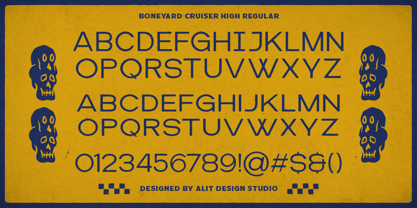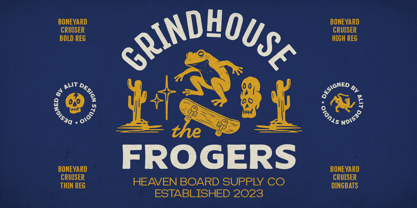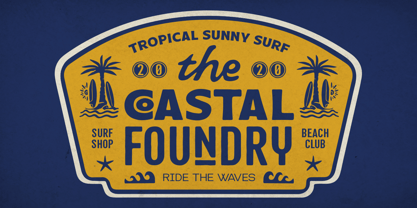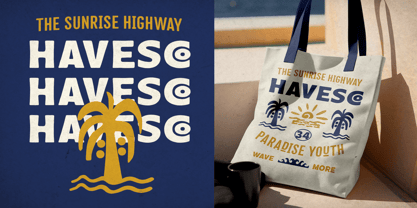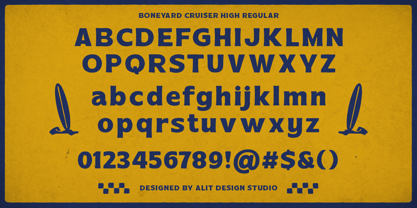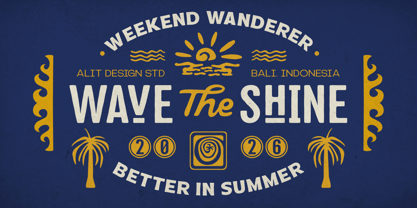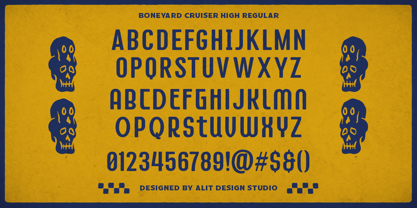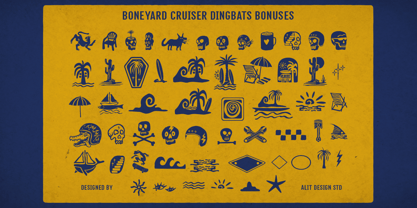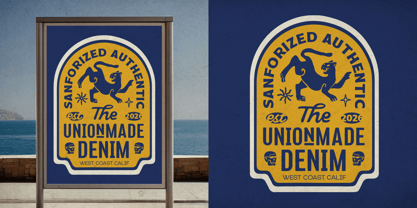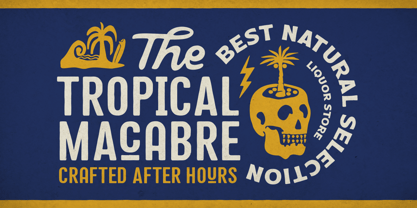
Boneyard Cruiser High
by Alit Design
The Boneyard Cruiser High Font Family was designed by Alit Suarnegara and published by Alit Design. Boneyard Cruiser High contains 4 styles and family package options. More about this family
Introducing Boneyard Cruiser: A Retro Surf & Skate Typeface Capture the rebellious spirit of the coast with the Boneyard Cruiser Typeface. Designed by Alit Design Studio, Boneyard Cruiser is more than just a font—it’s a time machine back to the golden era of grindhouse cinema, vintage skate decks, and sun-soaked surf shops. With its gritty, hand-drawn texture and imperfect edges, this font family embodies the carefree, adventurous lifestyle of endless summers and secret island getaways. Whether you are designing a badge for a new craft beer, a t-shirt for a streetwear brand, or a poster for a beach festival, Boneyard Cruiser brings an authentic, worn-in character that feels instantly classic. 🌊 Why You’ll Love Boneyard Cruiser: Three Distinct Weights: Mix and match to find your perfect hierarchy. Bold Regular: Heavy, impactful, and perfect for main headlines. High Regular: A condensed, tall variation for fitting big messages in tight spaces. Thin Regular: Clean and legible, great for subtext and details. Massive Bonus Pack: Includes 83 Hand-Drawn Dingbats! From skulls and cactuses to palm trees and skateboards, these illustrations allow you to build complete logos and badges in seconds without needing extra assets. Stylistic Alternates: The "High Regular" style comes with unique underlined alternates and catchwords (The, Of, On, Estd) to give your typography a custom, hand-lettered feel. Ligatures: Custom ligatures (like 'CO', 'FI', 'FL') ensure your text flows naturally with a quirky, human touch. 🛠 Perfect For: Apparel Design: Vintage t-shirts, hoodies, and caps. Branding: Surf shops, skate parks, coffee roasters, and barbershops. Event Graphics: Music festival posters and party invitations. Packaging: Label designs that need a rugged, organic look.